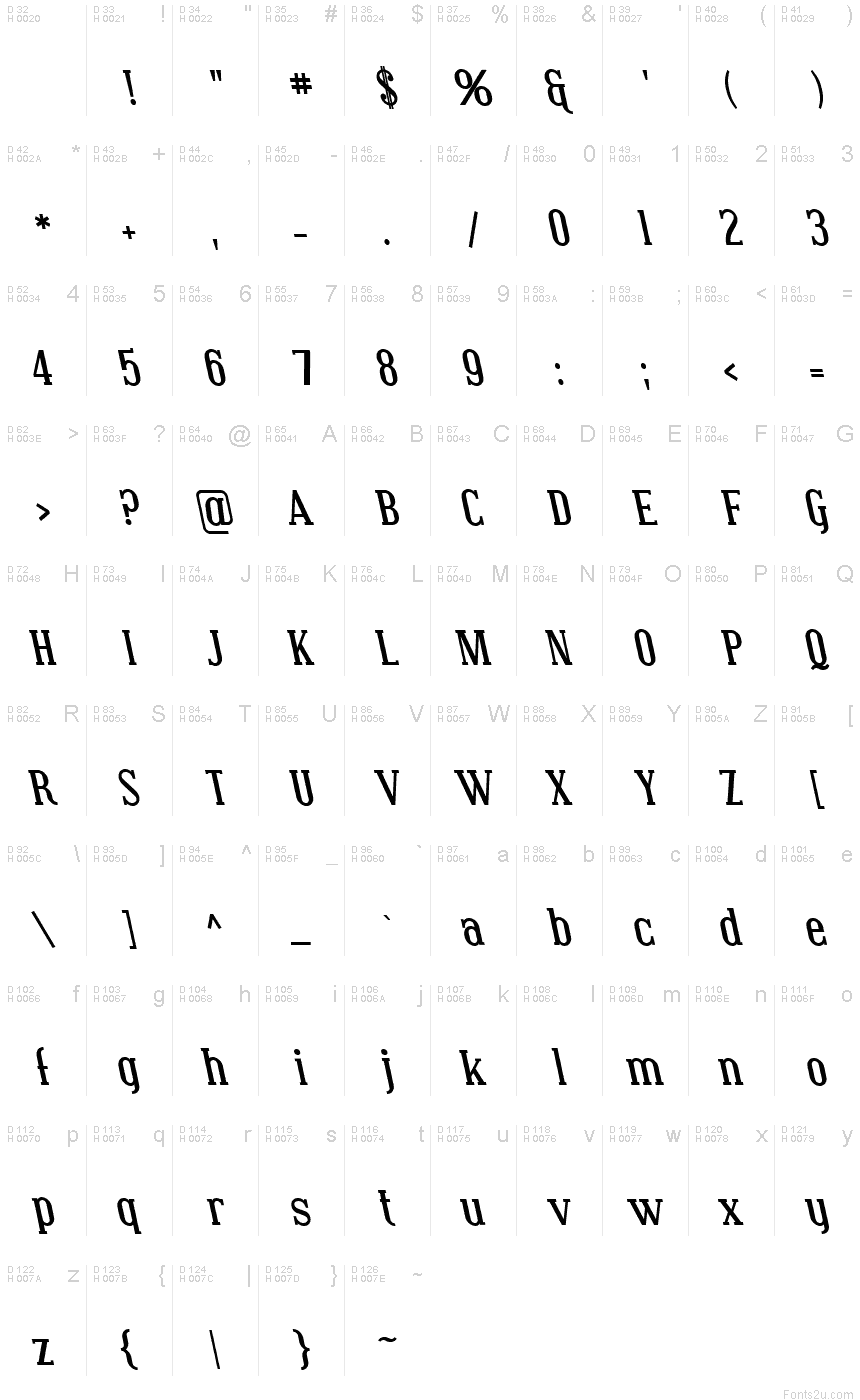
SF Covington Rev Bold Italic by Derek Vogelpohl of ShyFoundry is a free Western serif display font with narrow, steeply slanted letters and dramatic stroke contrast. Its pointed serifs sharpen the silhouette.
The Old West reference makes it a natural fit for saloon signage, frontier-themed posters, and historical game graphics. It can also bring period flavor to beverage packaging and music merchandise, with the compressed proportions and angled stance linking these uses through the look of hand-painted nineteenth-century advertising.